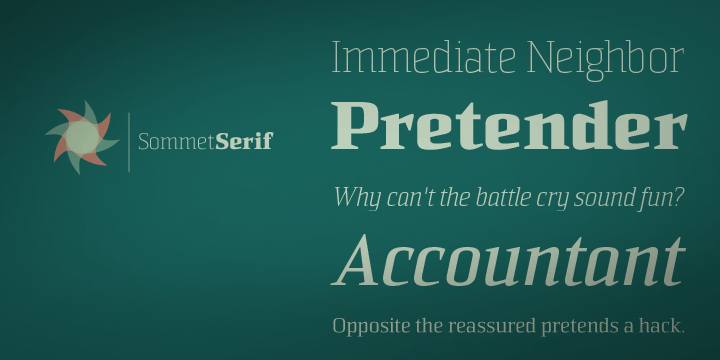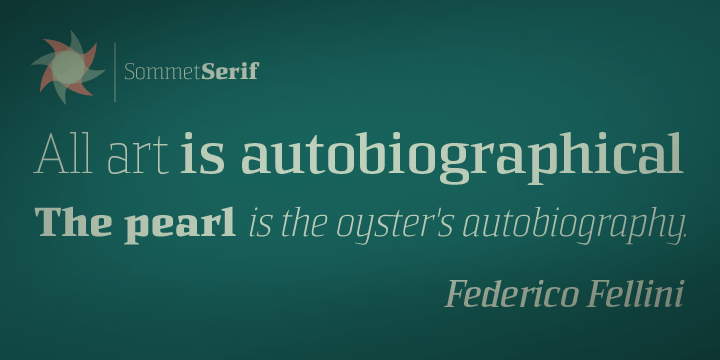
Sommet Serif
Font Family by Insigne
The Sommet superfamily has been updated with a new serifed member. Expanding on Sommet's successful design principles, Sommet Serif is there when you need legibility for continuous text. Its interesting forms lend it to use as headlines as well.
Sommet Serif is available with six weights and complementary italics and plenty of OpenType features. Sommet Serif features a tall x-height, and its letterforms are compact, perfect for when layout space is at a premium. Sommet Serif also includes oldstyle figures and small caps. Use Sommet Serif whenever you need a powerful and contemporary serif. In addition, be sure to check out the sans, rounded, and slab members of the superfamily.